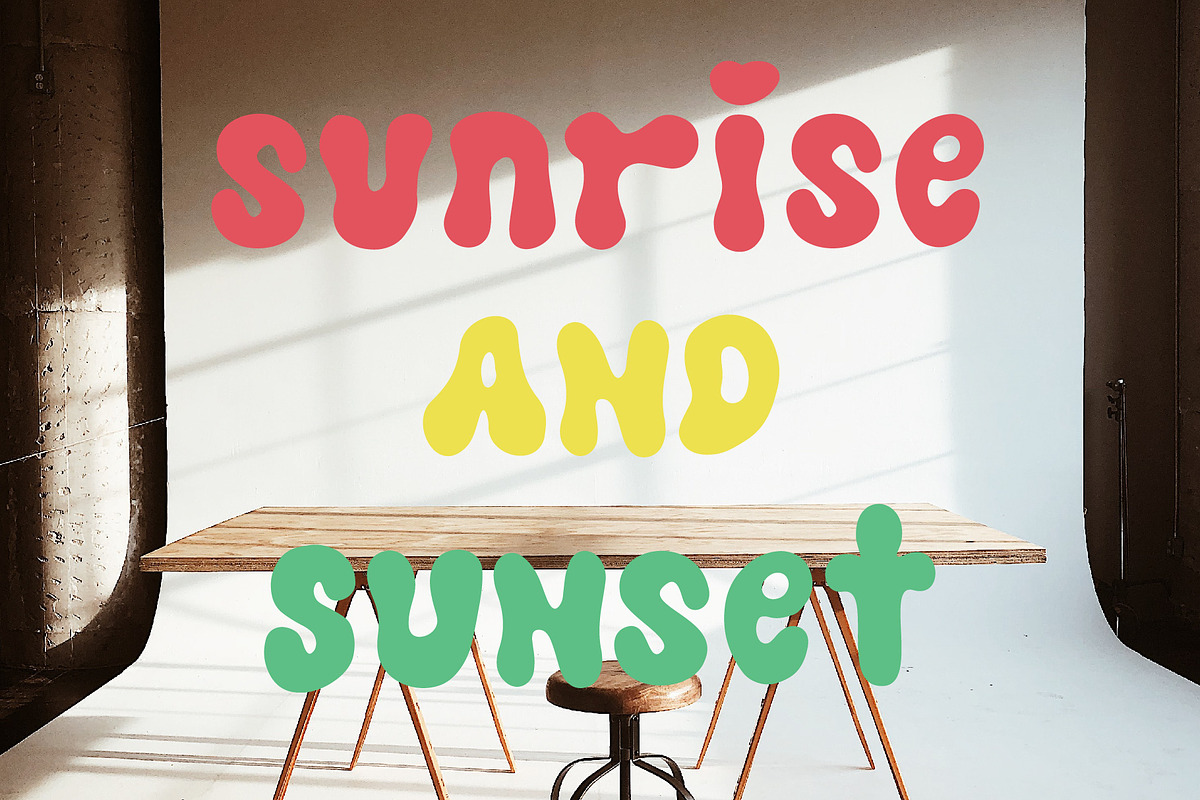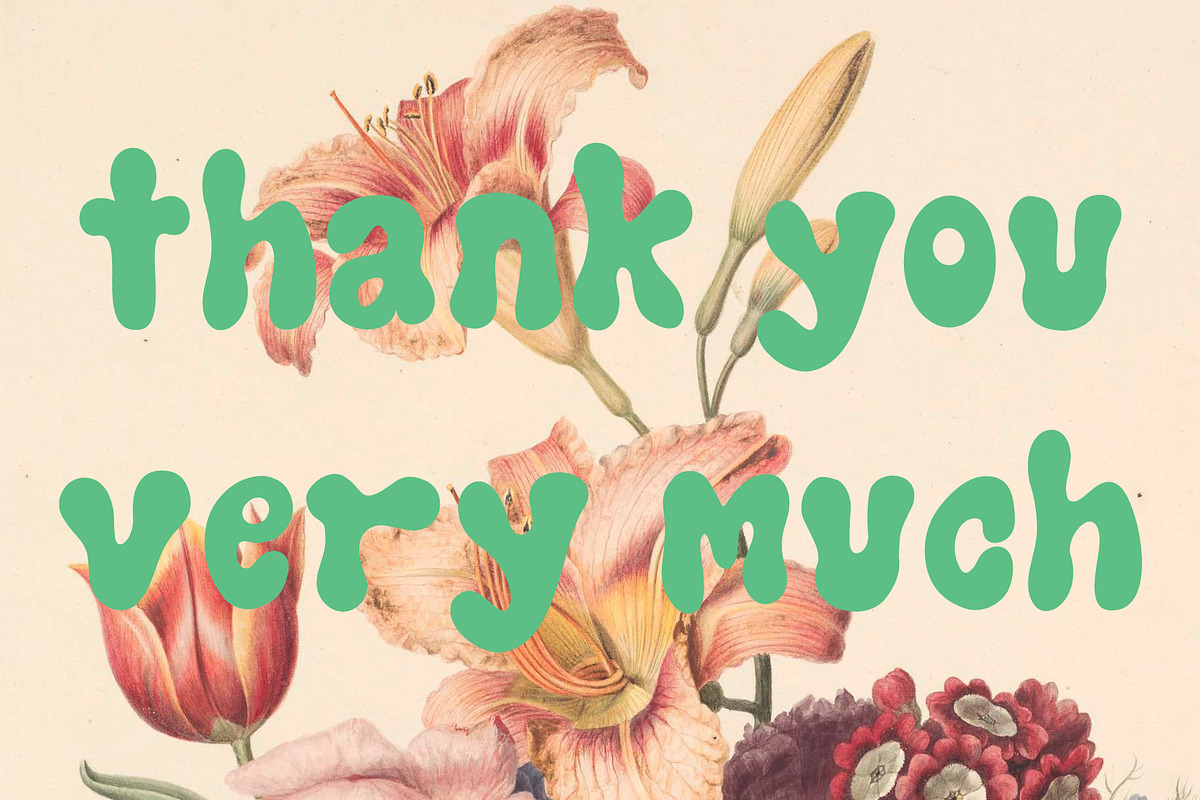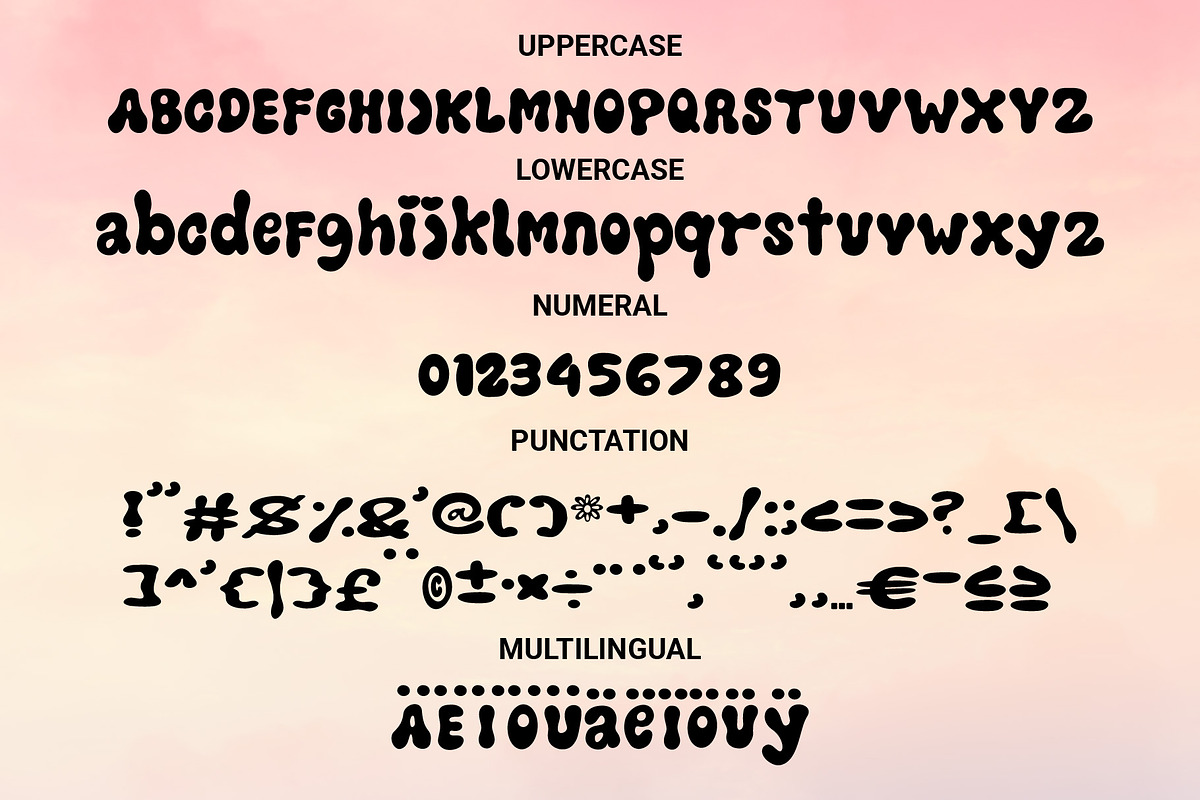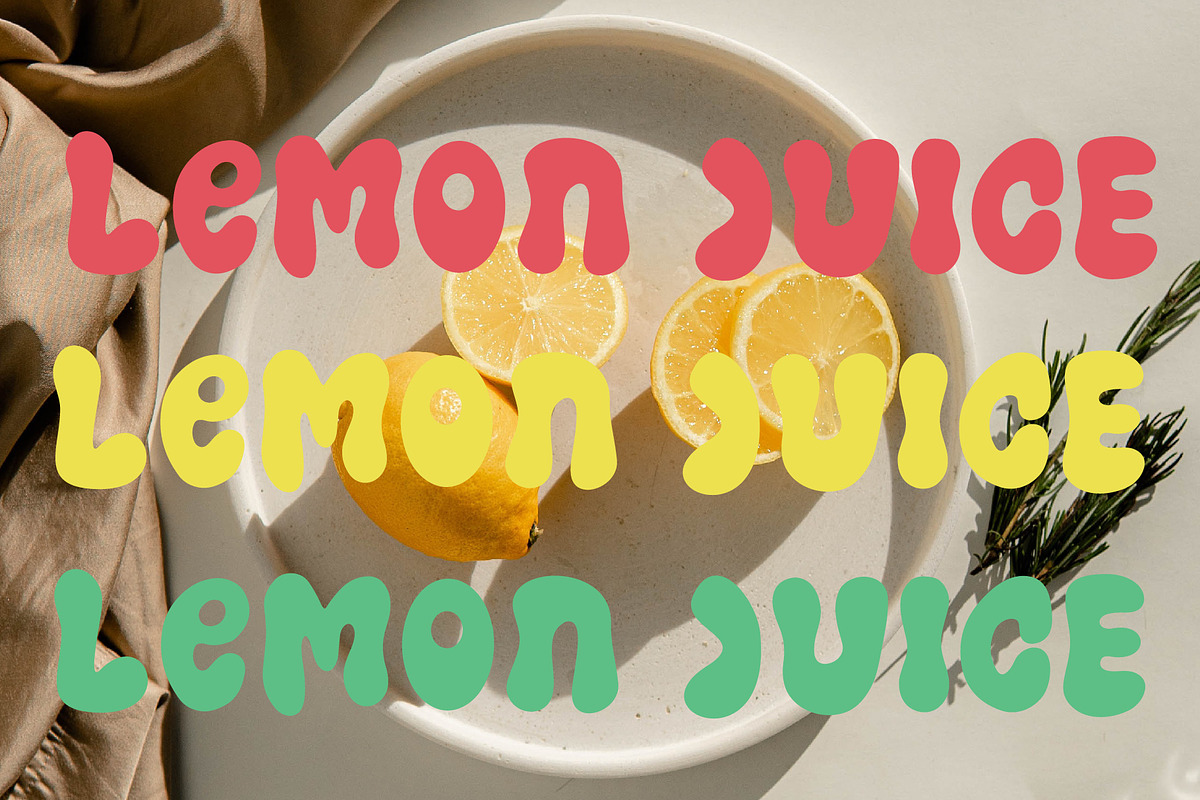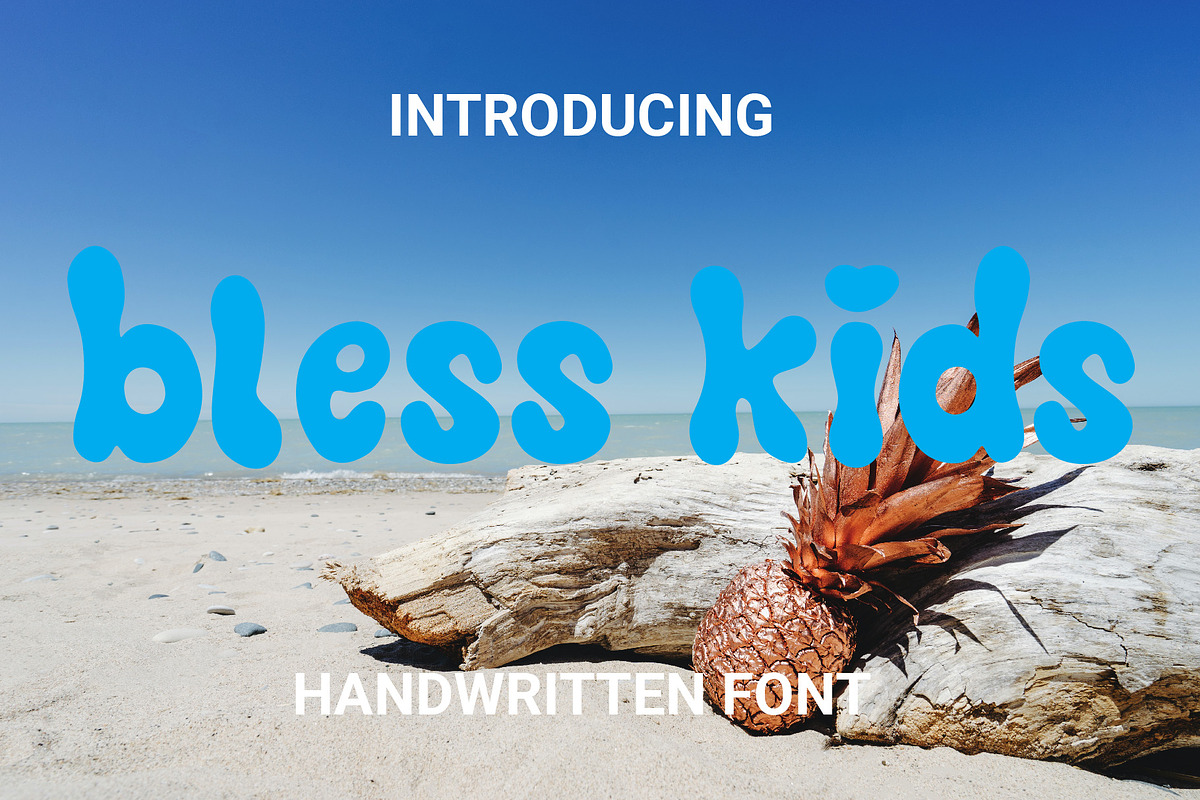
Bless Kids
Bless Kids is an interesting and thick handwritten font perfect for any creative projects you wish to bring to life. Add it to your fonts library, and start creating spectacular designs